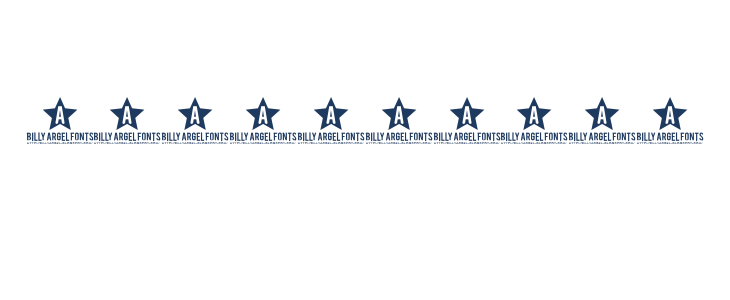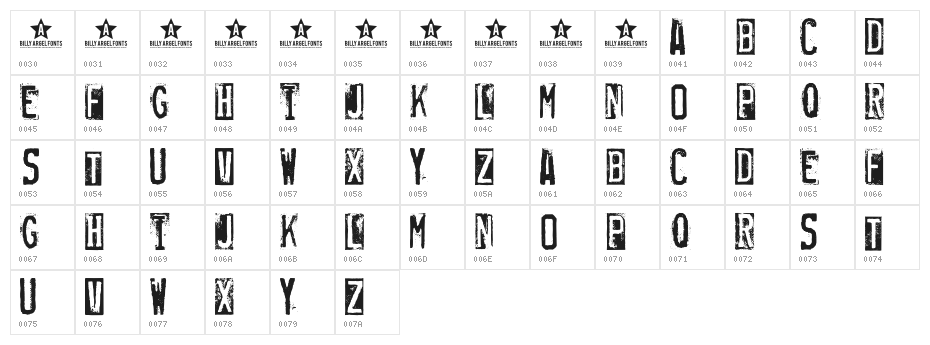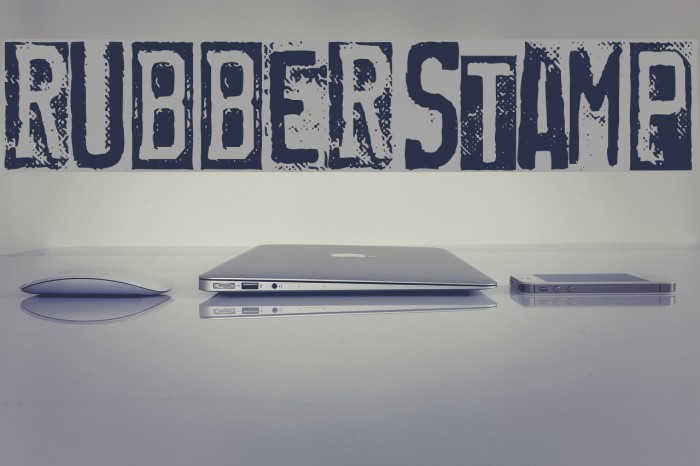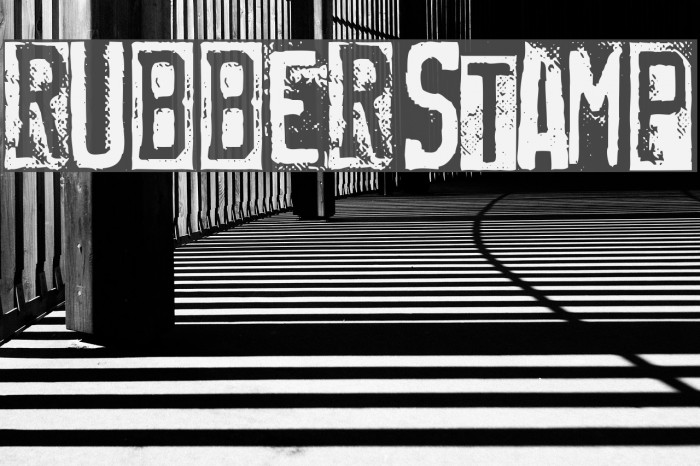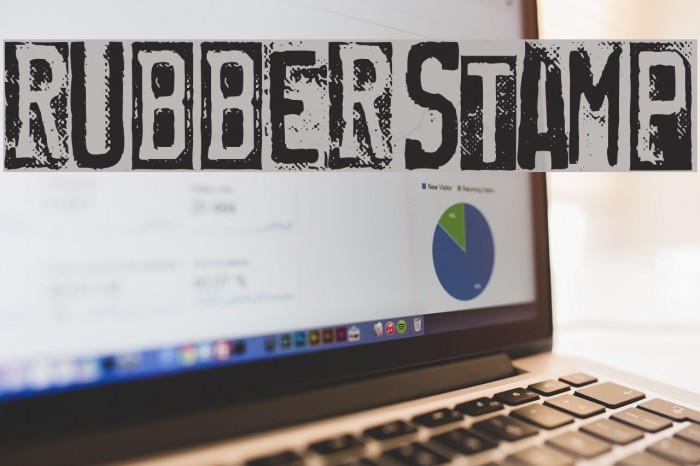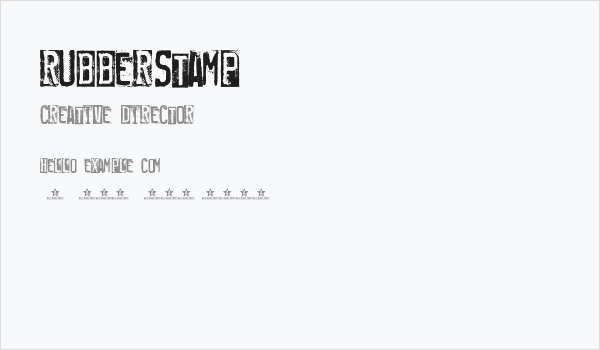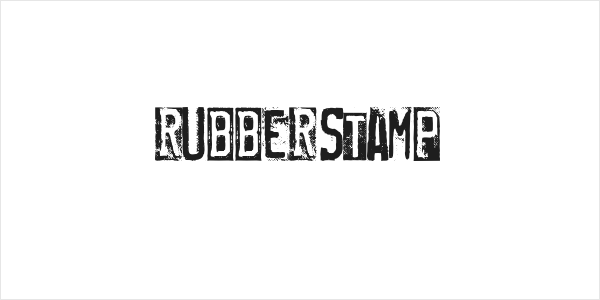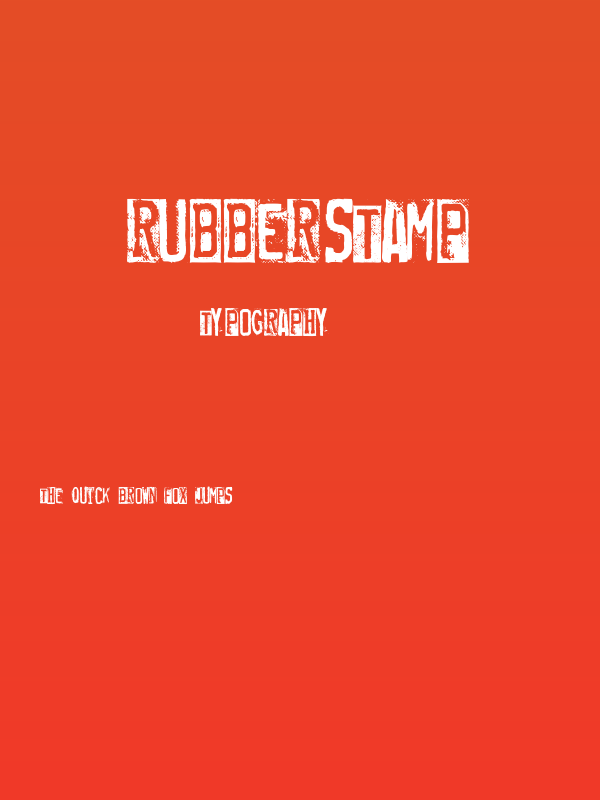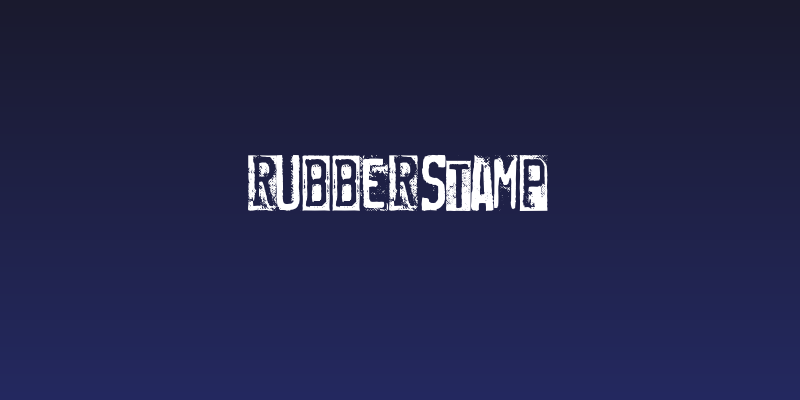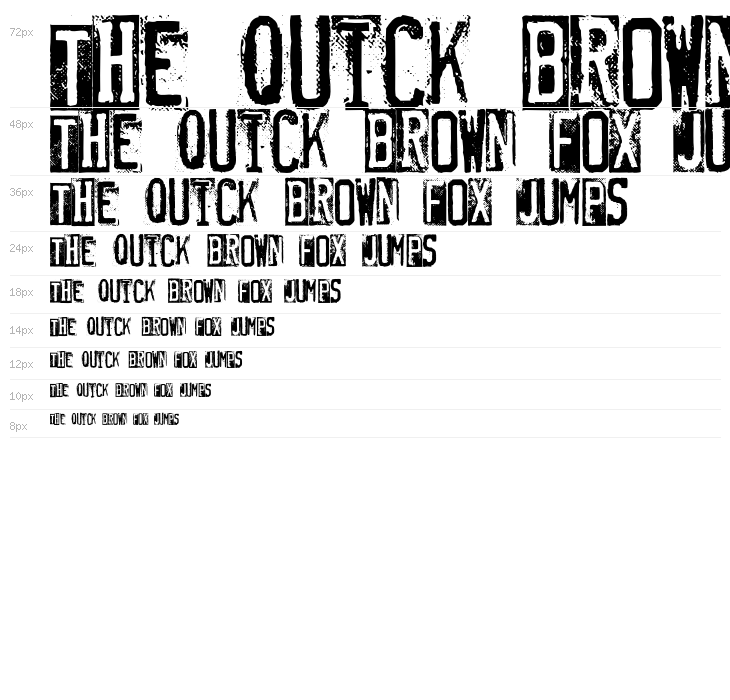
RUBBERSTAMP Font
RUBBERSTAMP Description
This font features a distressed, textured appearance reminiscent of vintage rubber stamps. The characters are bold and blocky, with a rough, uneven surface that gives them a weathered, industrial look. Each letter appears to have been stamped with varying pressure, resulting in a unique, imperfect outline that adds character and authenticity. The font's style is both rugged and artistic, making it ideal for projects that require a touch of nostalgia or a handcrafted feel. Its boldness ensures readability, while the distressed texture adds visual interest.
| Proposed Projects | Ideal for branding, posters, album covers, and any design requiring a vintage or industrial aesthetic. |